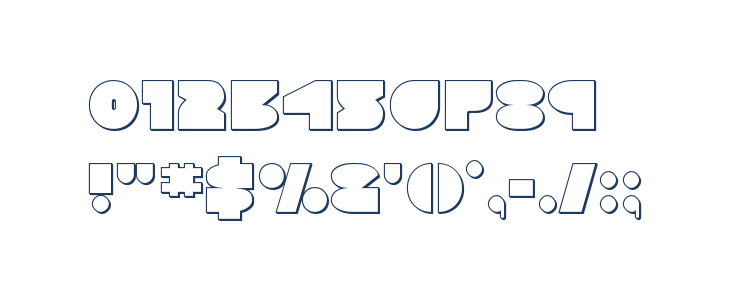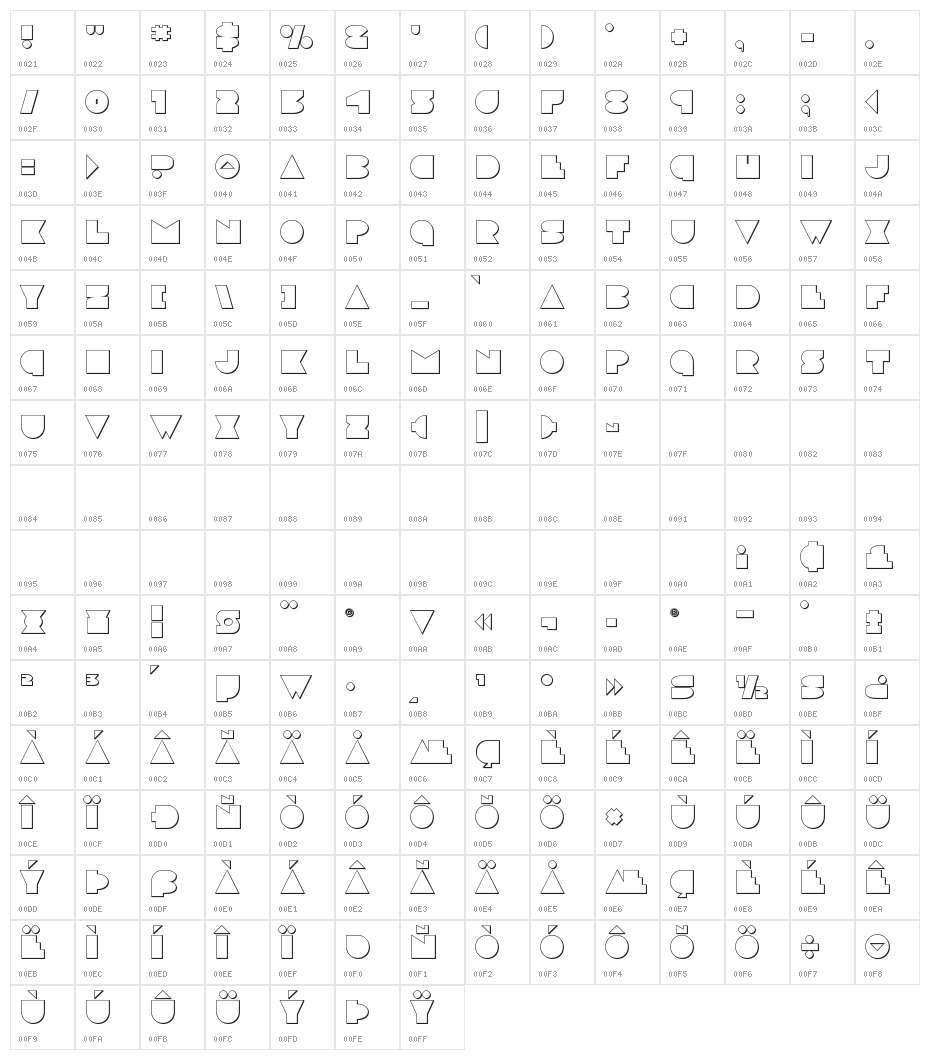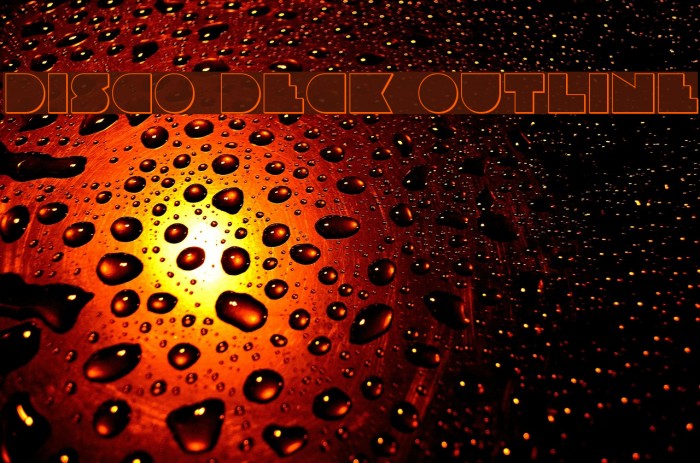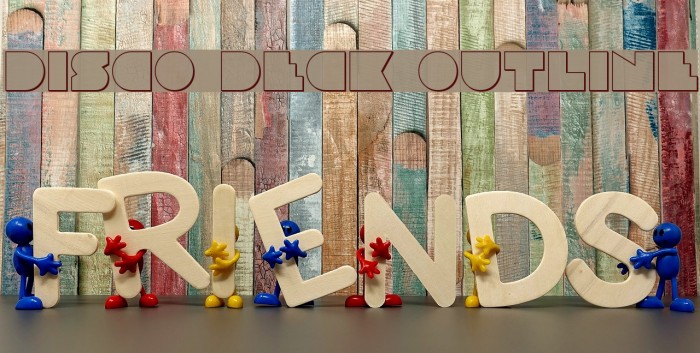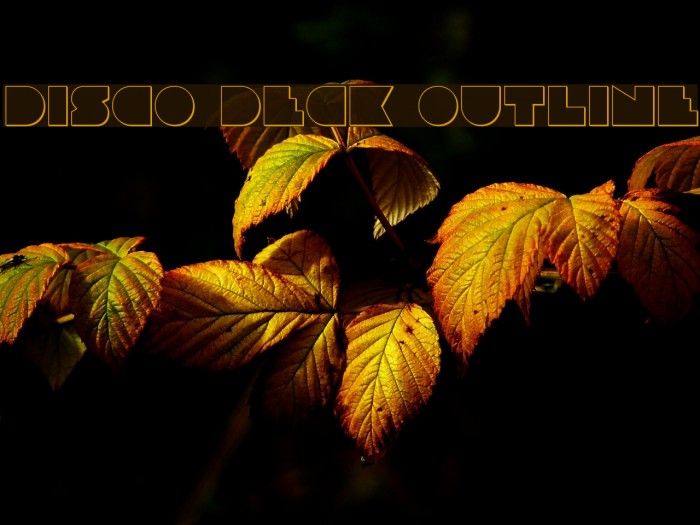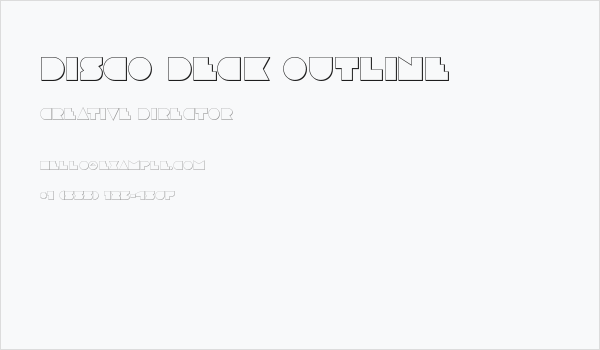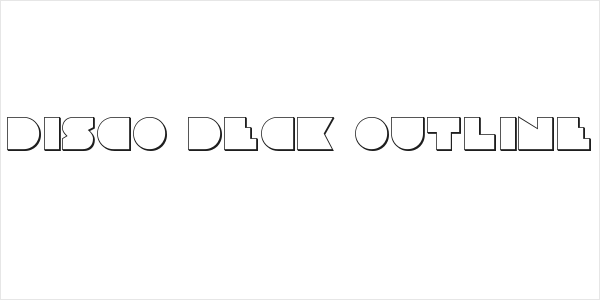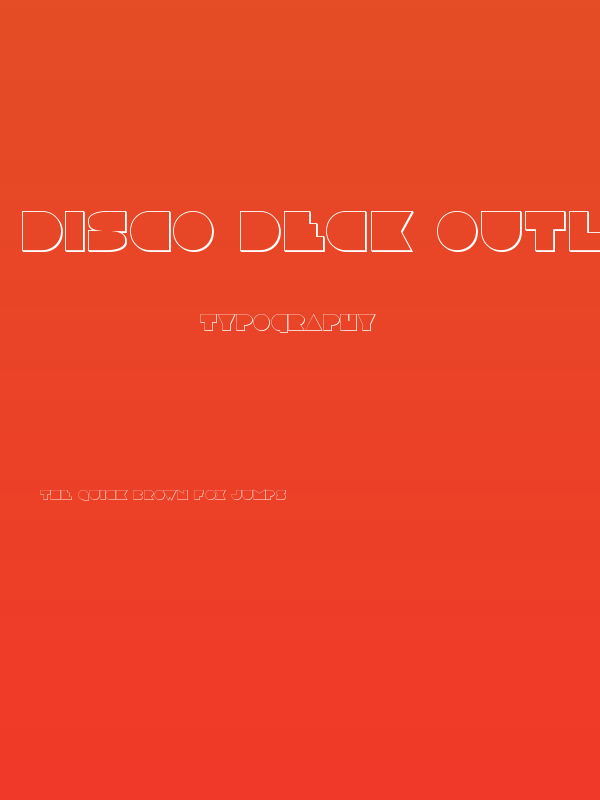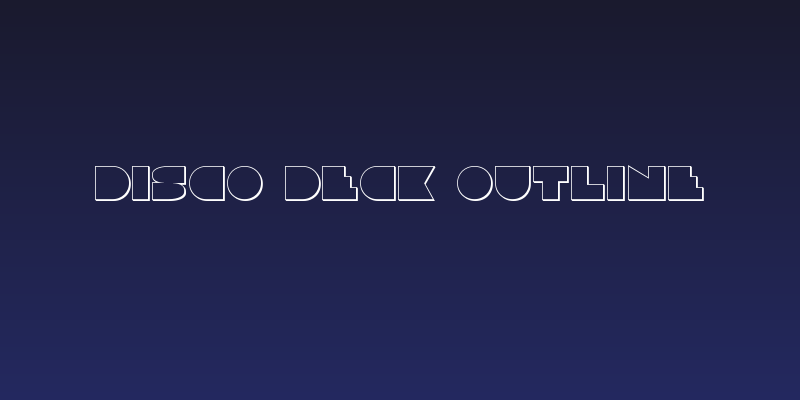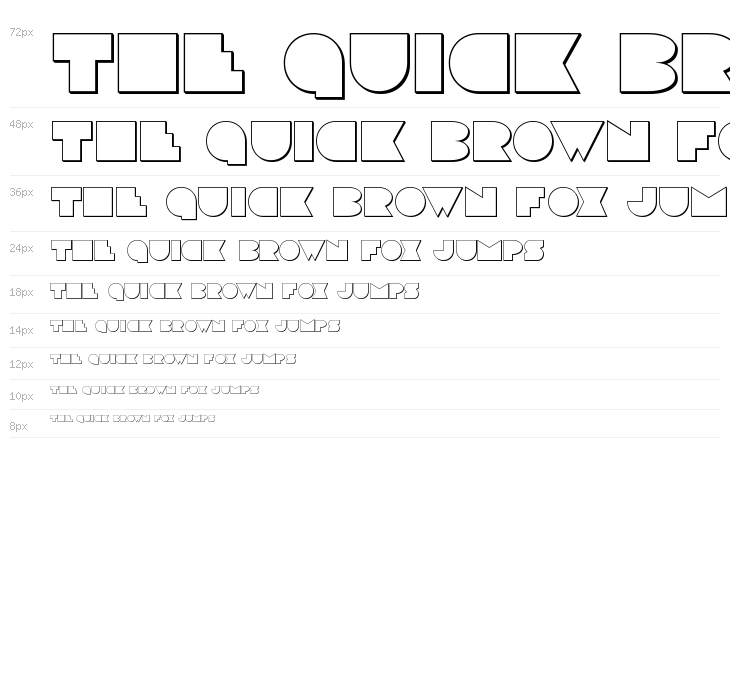
Disco Deck Outline Font
Disco Deck Outline Description
This font features a bold, geometric outline style that is both modern and playful. The characters are constructed with clean lines and sharp angles, creating a sense of movement and energy. The uppercase and lowercase letters share a consistent design, emphasizing symmetry and balance. The numbers and special characters are equally dynamic, maintaining the font's cohesive aesthetic. This font's unique outline design makes it stand out, offering a fresh take on traditional geometric fonts. Its boldness and clarity ensure readability while adding a distinctive flair to any text.
| Proposed Projects | Ideal for posters, album covers, event flyers, and branding projects that require a bold and modern aesthetic. |